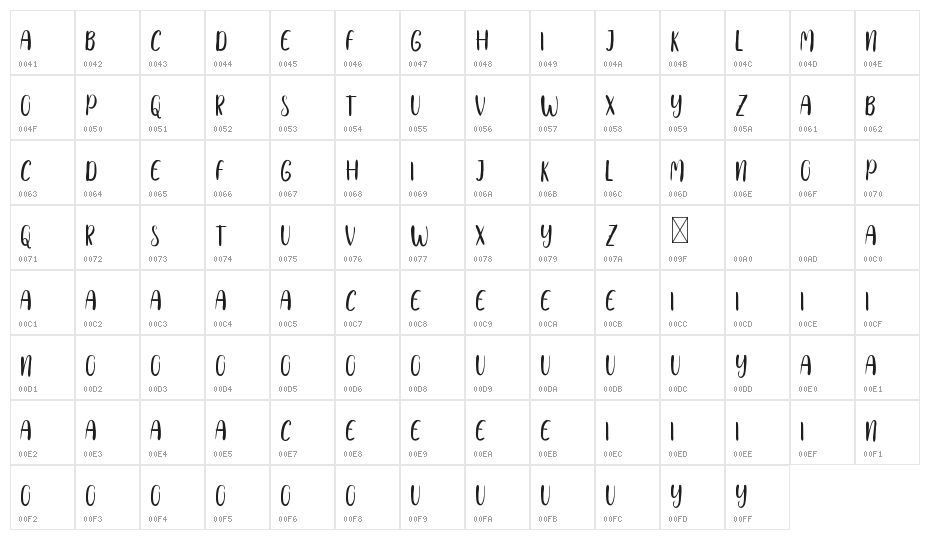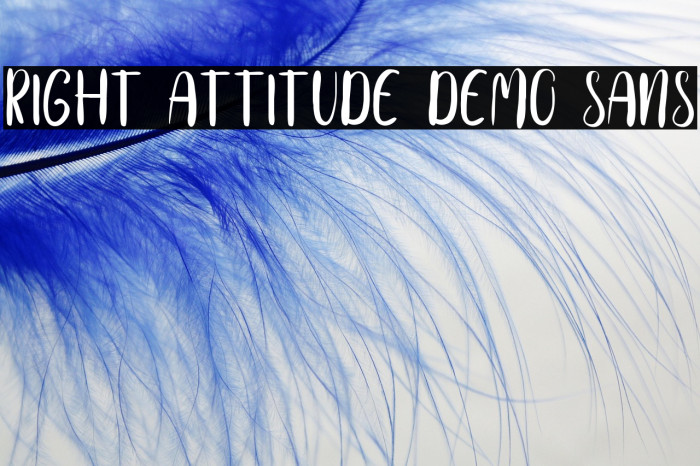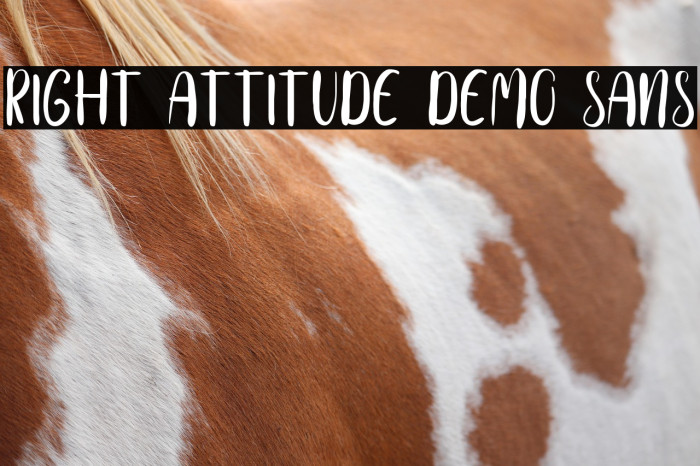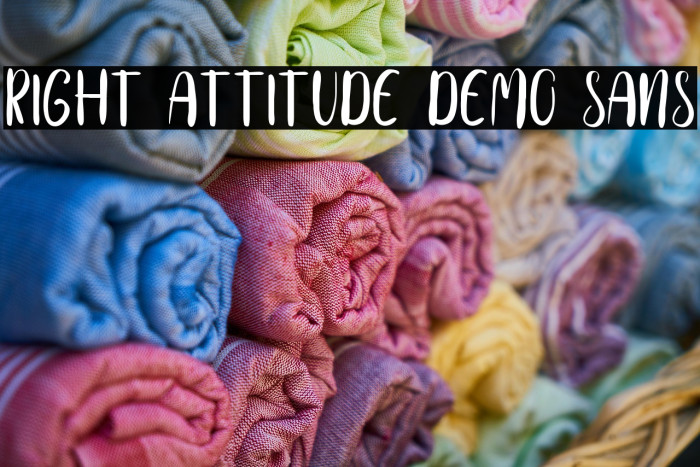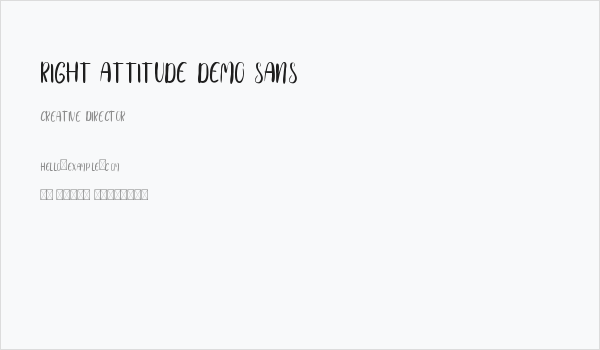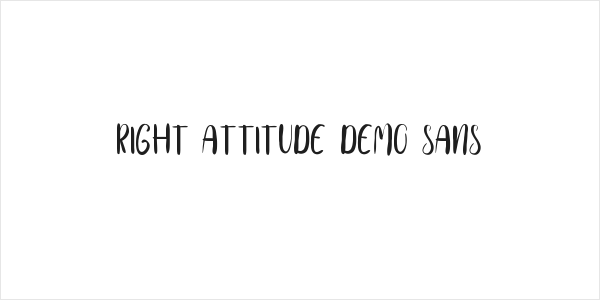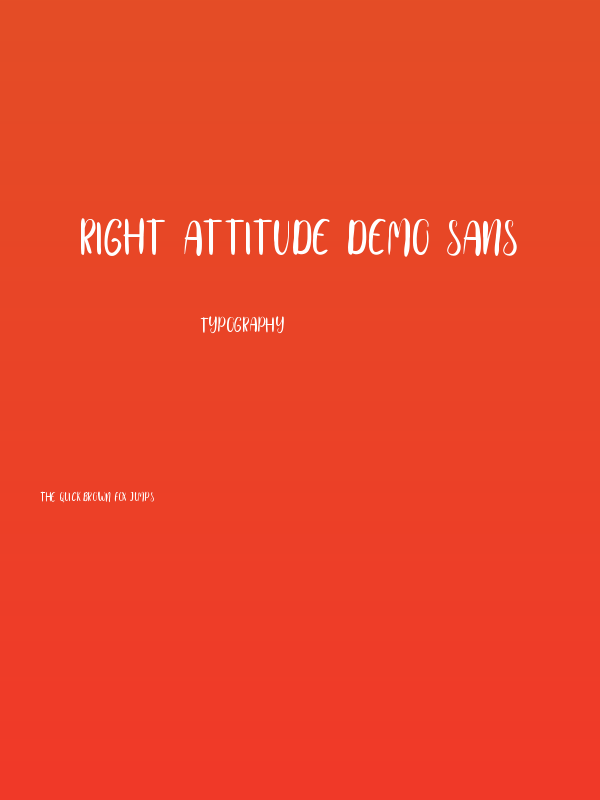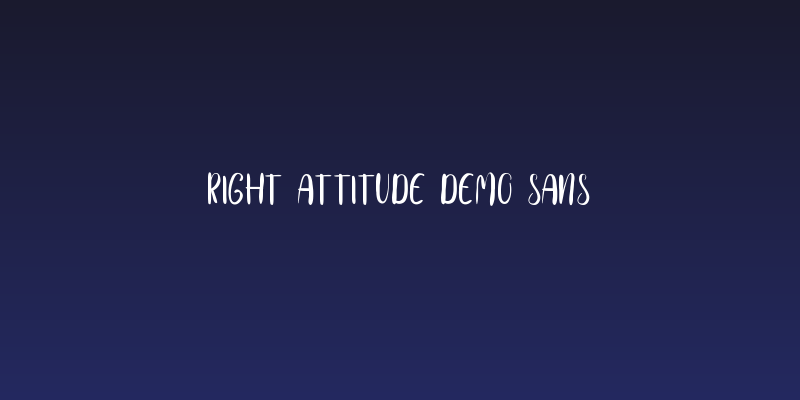
Right Attitude Demo Sans Font
Right Attitude Demo Sans Description
This font features a playful and energetic style, characterized by its bold and flowing letterforms. Each character exhibits a hand-drawn quality, with smooth curves and a slight slant that adds a dynamic feel. The strokes are thick and consistent, providing a strong visual impact. The uppercase letters are particularly expressive, with unique variations that give the font a distinctive personality. The overall appearance is modern and stylish, making it suitable for creative and informal applications. Its lively nature makes it perfect for projects that require a touch of fun and individuality.
| Proposed Projects | Ideal for branding, posters, social media graphics, and creative invitations. |